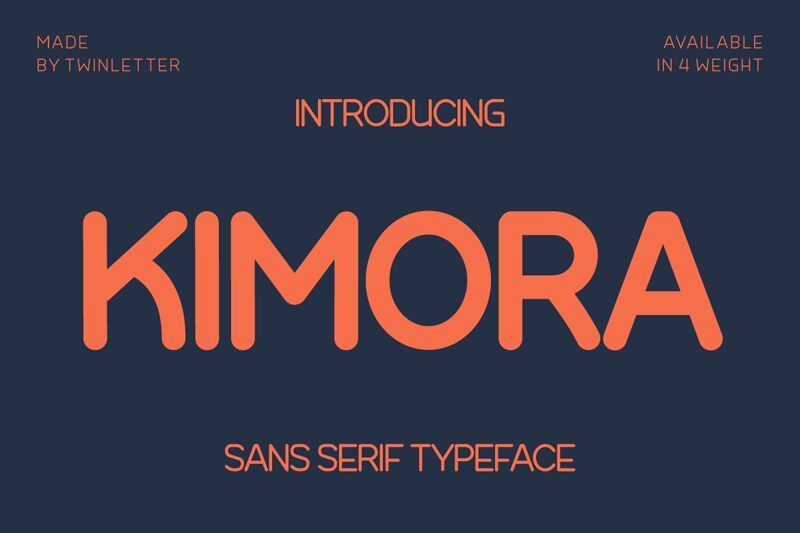
KIMORA Bold Personal Use
KIMORA Bold is a stunning rounded sans serif typeface, designed by twinletter. With its semi-light weight, it exudes a modern and elegant feel that will elevate any design project. The boldness of the font makes it perfect for headlines and titles, while its rounded edges bring warmth and approachability to body text. KIMORA Bold is versatile and suitable for a range of projects such as branding, editorial design, packaging, and web design. Its unique personality will make your designs stand out from the crowd while still maintaining readability and legibility. Give KIMORA Bold a try to add some sophistication to your next project!